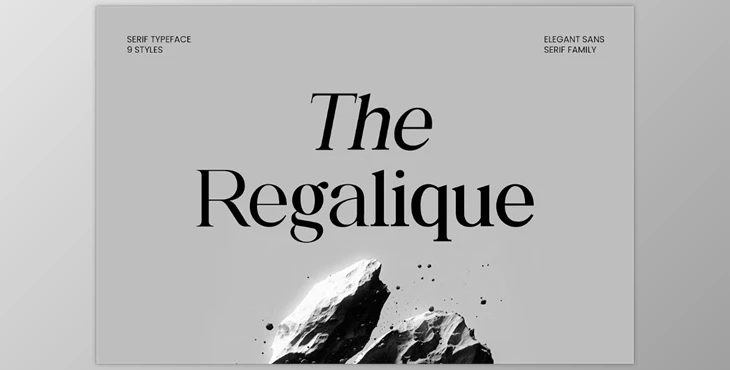
The Regalique Elegant Serif Font Family:
The Regalique Sans Serif Family Font is a modern display font that's classy, sophisticated, and super stylish! The Regalique Sans Serif Family Font is great for various creative projects ranging from signatures to stationery, logos to wedding invites, and typography quotes. It looks awesome on magazine/book covers, website headers, and branding efforts! Whether branding efforts are focused on fashion or an editorial type, The Regalique Sans Serif Family Font is the perfect combination of masculine and feminine, making it appropriate for any project!
- Extensive glyph collection
- PUA Encoded Characters for accessibility without additional software for access
- Supports 66 languages - Afrikaans, French, German, Spanish, Zulu, and more!
If you're looking to add a touch of sophistication to your creation, The Regalique Sans Serif Family Font is the font family for you!